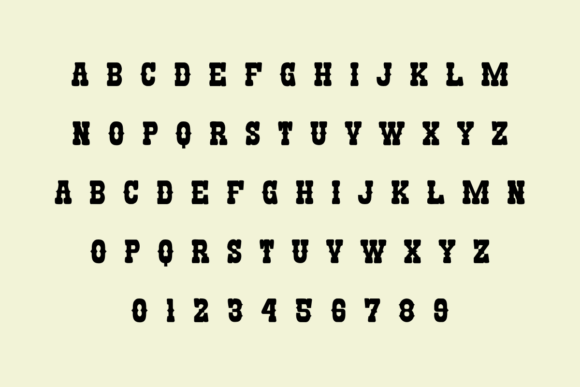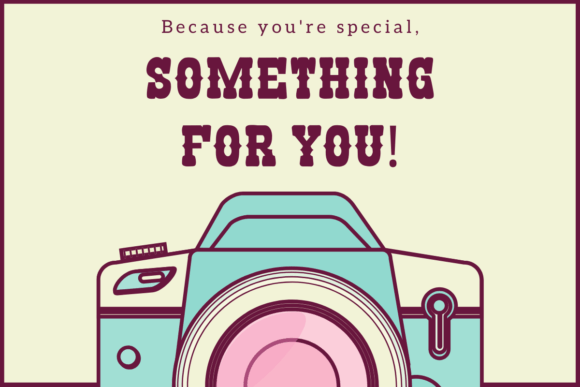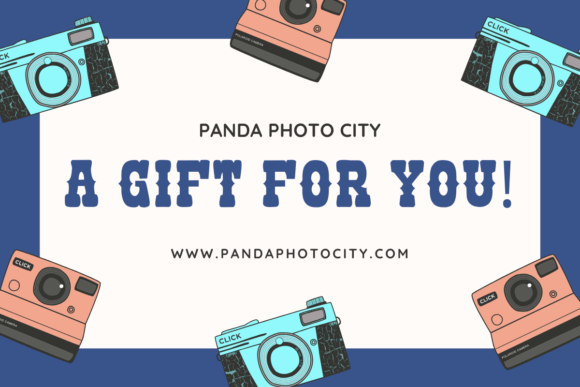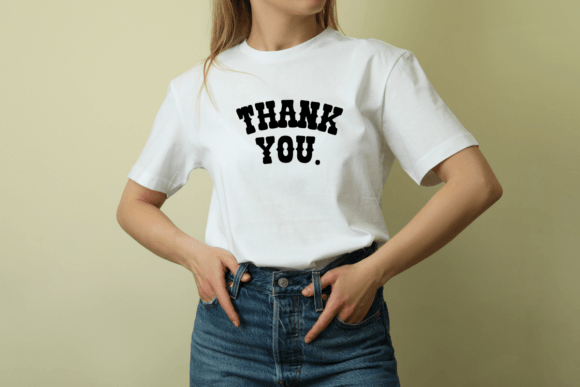
Introduction to Retro Camera Font
Do you remember the thrill of snapping a photo with an old film camera? The anticipation of waiting to see the developed print, the satisfaction of capturing a perfect moment, and the charm of those retro-style frames that added a unique touch to your memories. That nostalgic feeling is exactly what the Retro Camera Font captures, and it’s about to become your new favorite design resource.
As a designer, you’re always on the lookout for high-quality fonts that can elevate your creative projects. Whether you’re working on a greeting card, a social media post, or a custom mug, the right font can make all the difference. The Retro Camera Font is a stunning Western-style slab serif font that’s perfect for adding a touch of vintage charm to your designs.
Key Features of Retro Camera Font
- Unique, distressed texture effect, reminiscent of old film cameras
- High-quality, vector-based design for scalability and crisp rendering
- Perfect for creative projects that require a nostalgic, retro aesthetic, such as photography, advertising, and graphic design
Honest Review: Retro Camera Font
I recently stumbled upon the Retro Camera Font and I must say it’s a great addition to any creative project. The font has a unique and nostalgic feel to it, reminiscent of old-school cameras. I love how it can instantly evoke a sense of nostalgia and timelessness in any design.
- ✨ High-quality design: The font is well-designed and has a professional feel to it.
- ⚠️ Limited style options: While the font itself is great, there aren’t many style options to choose from, which may limit its versatility.
- ⚠️ Not suitable for all designs: The font’s nostalgic feel may not be suitable for all types of designs, such as modern or minimalist projects.
Overall, I think the Retro Camera Font is a great design resource that can add a unique touch to any creative project. While it may have some limitations, its high-quality design and free download make it a great option for designers looking for a free font.
Retro Camera Font
Retro Camera Font is a unique design resource that can add a touch of nostalgia to your creative projects. This high-quality font is available for free download and can be easily integrated into various design applications.
Retro Camera Font is ideal for creative projects that require a vintage or nostalgic feel. Some common use cases include:
- Designing a website or blog with a retro theme
- Creating a poster or flyer for a vintage event
- Designing a product label or packaging with a nostalgic feel